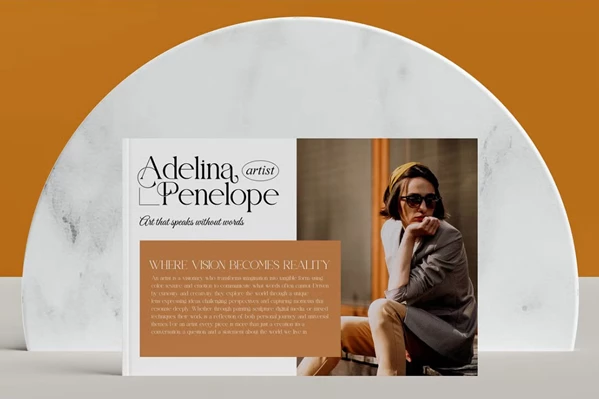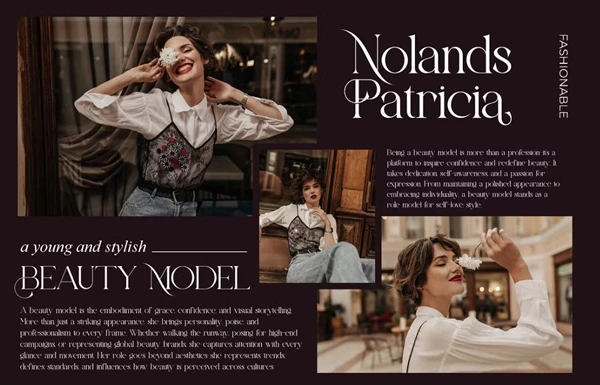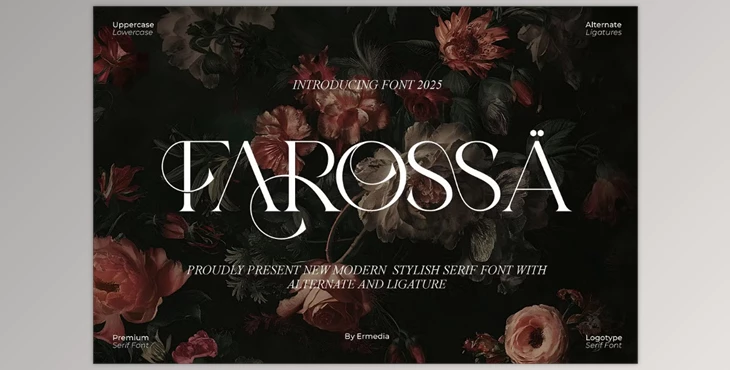
Farossa Modern Elegant Serif Font:
Farossa Modern Elegant Serif Font is one of the fonts that can be used to brand logos or create stylish cards and business cards, write elegant movie titles, and much more. Its unique look makes it easy to integrate into many projects. The smooth character lines and stylish ligatures enable any creative work with Farossa Serif to look elegant and modern—perfect for boxed designer wear.
Some great features of Farossa Modern Elegant Serif Font:
- Stylish ligatures
- Uppercase and lowercase letters are provided
- Numbers and punctuation are included